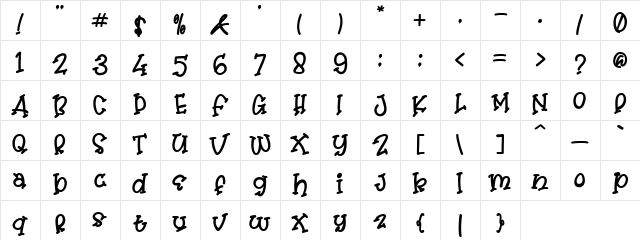
Complete Mister Clown Regular glyph index. Displaying only characters natively supported by Mister Clown Regular font.
Mister Clown is a composed and adaptable typeface that performs quietly and consistently across a wide range of design contexts.